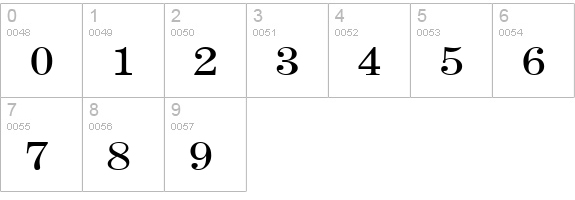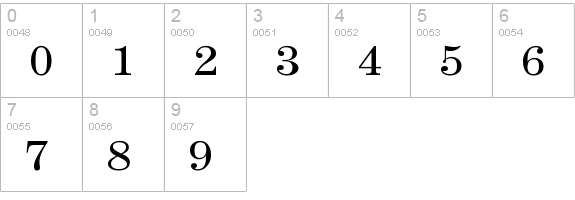
Annual-Extended is a distinctive, extended-width variant in the Annual typeface family \xE2\x80\x94 well suited to design and typography projects.
Introducing Annual-Extended font - a versatile and modern typeface that is perfect for a wide range of design projects. With its clean lines and elegant curves, Annual-Extended exudes sophistication and style. This font is ideal for branding, editorial design, packaging, and more. What sets Annual-Extended apart is not just its aesthetic appeal, but also the fact that it is available for free. Yes, you read that right - this high-quality font can be downloaded at no cost from FontsMarket.com. Whether you're a seasoned designer looking to add a fresh touch to your projects or a newcomer exploring the world of typography, Annual-Extended is a fantastic choice that won't break the bank. Don't miss out on the opportunity to enhance your designs with the timeless elegance of Annual-Extended font. Download it for free today and see the difference it can make in your creative endeavors.